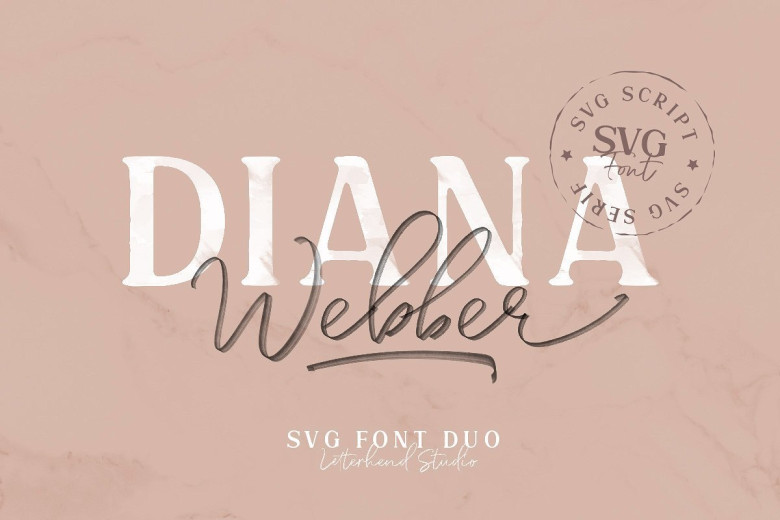
Diana Webber SVG Font Duo
A beautiful collection of hand-lettered modern calligraphy fonts, help a message to get the specified and fast. Introducing Diana Webber Font Duo. Diana Webber is a A Display Typeface Family which has two font that is a SVG script and SVG Serfi! What a perfect pair. The texture make it looks like a natural hand writing. Very suitable for you who needs a typeface for headline, logotype, apparel, invitation, branding, packaging, advertising etc.